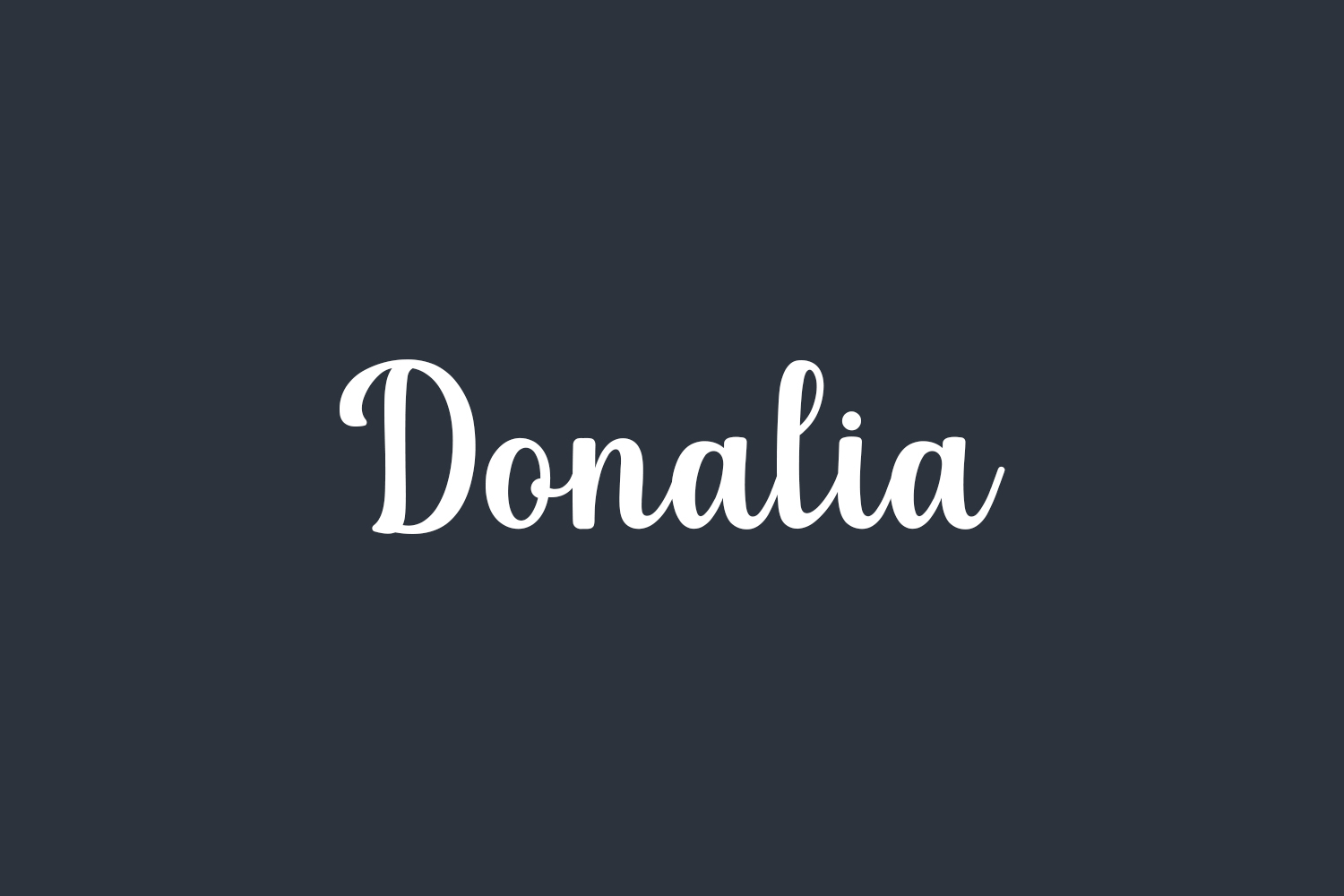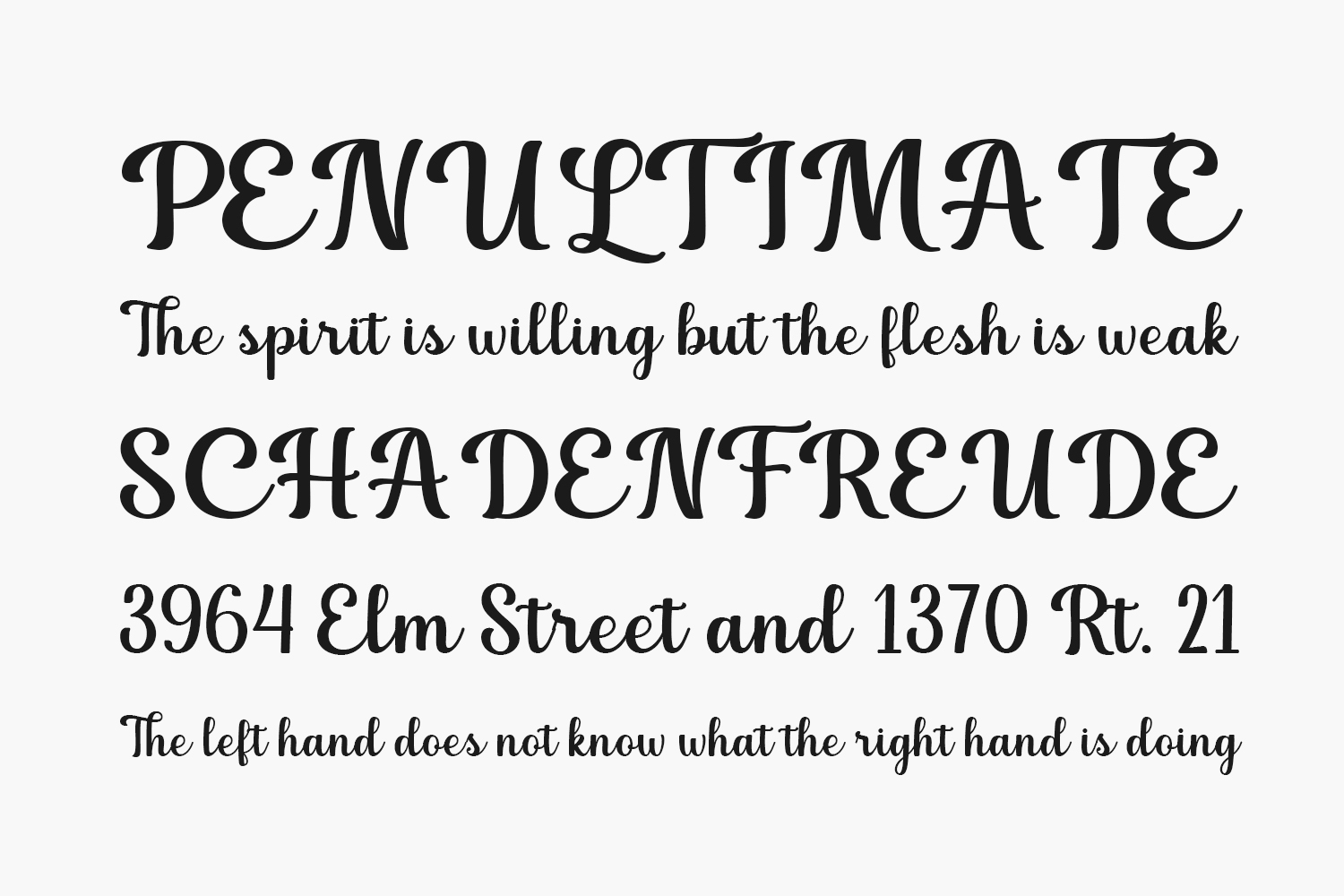
Donalia Free Font is a modern script font with an elegant style that makes it suitable for elegant projects! Add it to wedding projects, birthday cards, thank you notes, watermarks, name tags, and so much more. Donalia Free Font was designed by Manjali Studio and is free for personal use only. Please purchase the full version for commercial use.